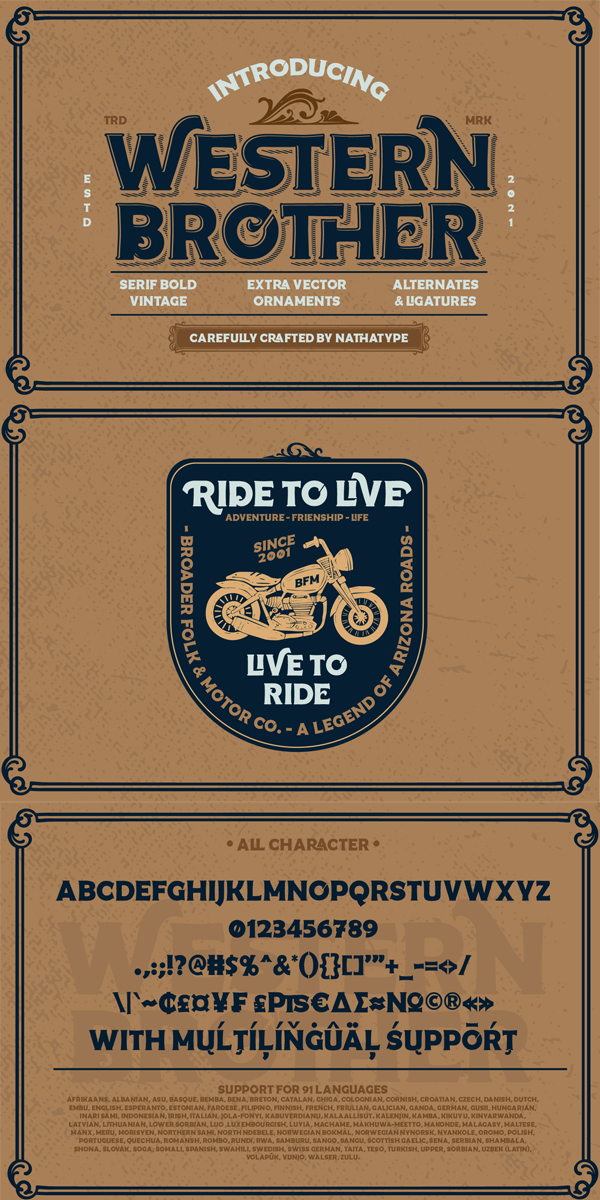
Western Brother Font
About Western Brother
Western Brother Vintage Font is a typeface that is made all characters in uppercase. An excellent choice to add the right amount of retro touch. This typeface with artistic style looks very interesting for loads of different projects and promotions. A great all-in-one package for your logo, book cover, poster, t-shirt, branding, and advertisement needs. The font is created by Din Studio.